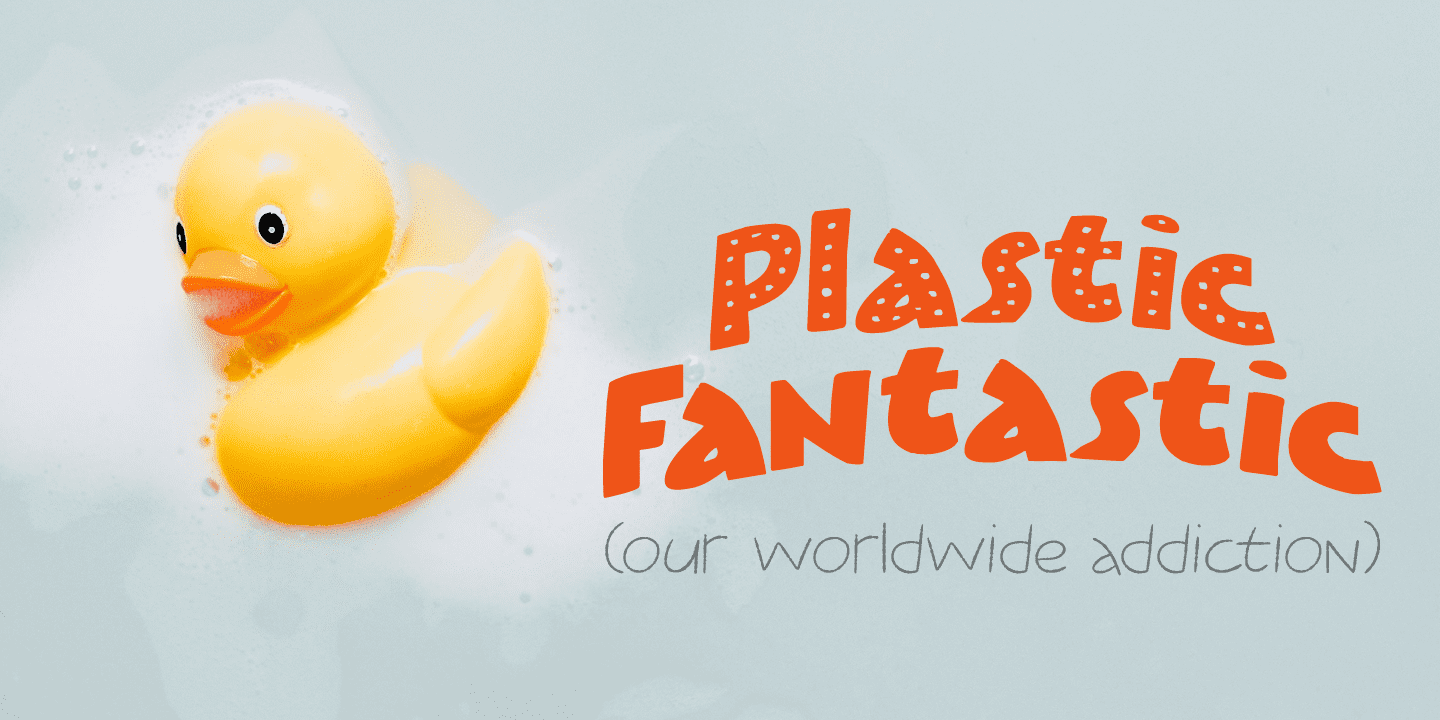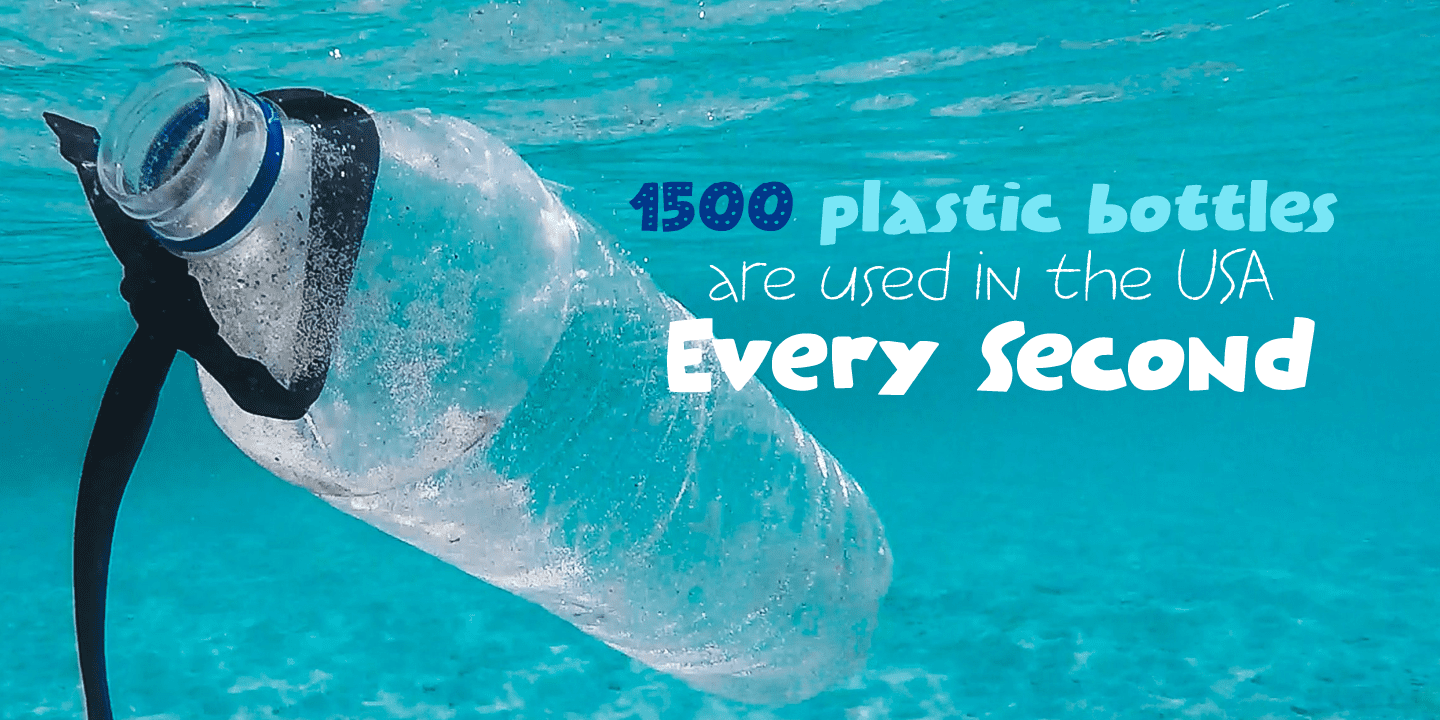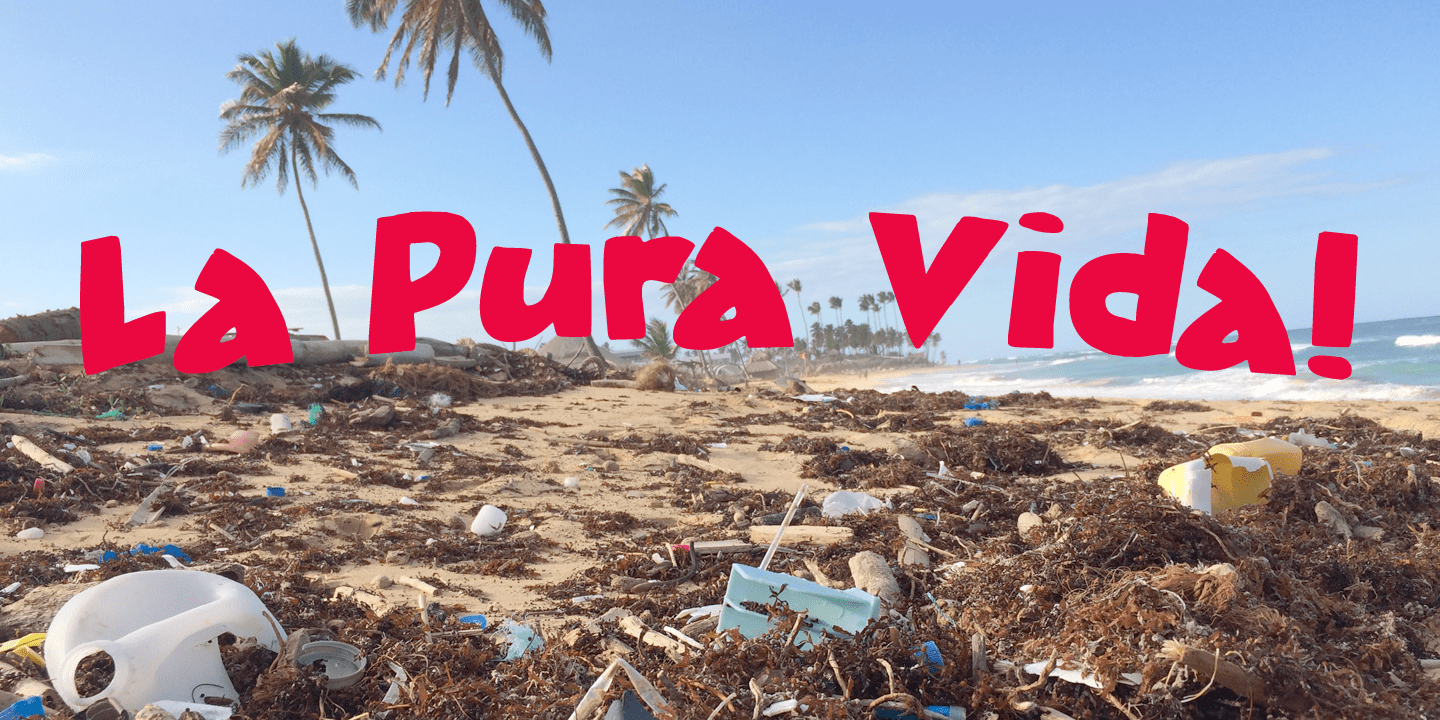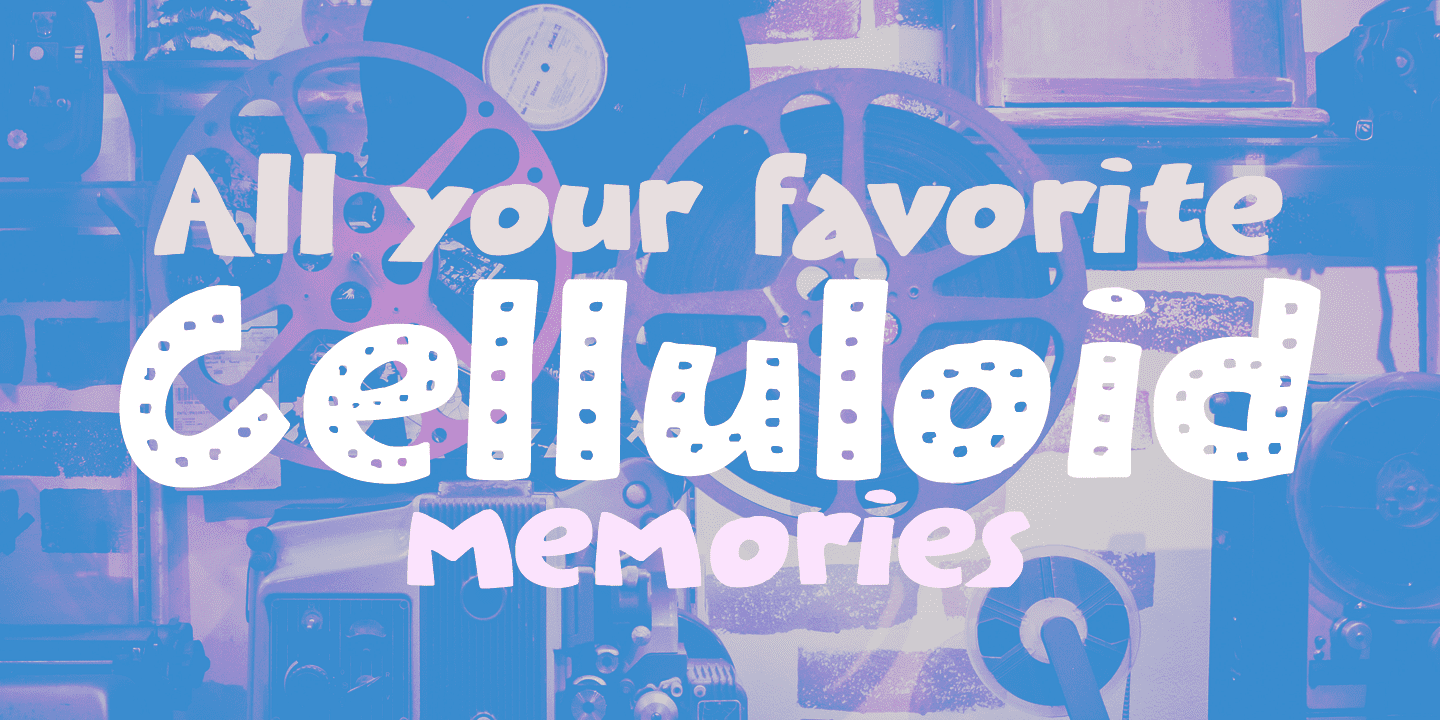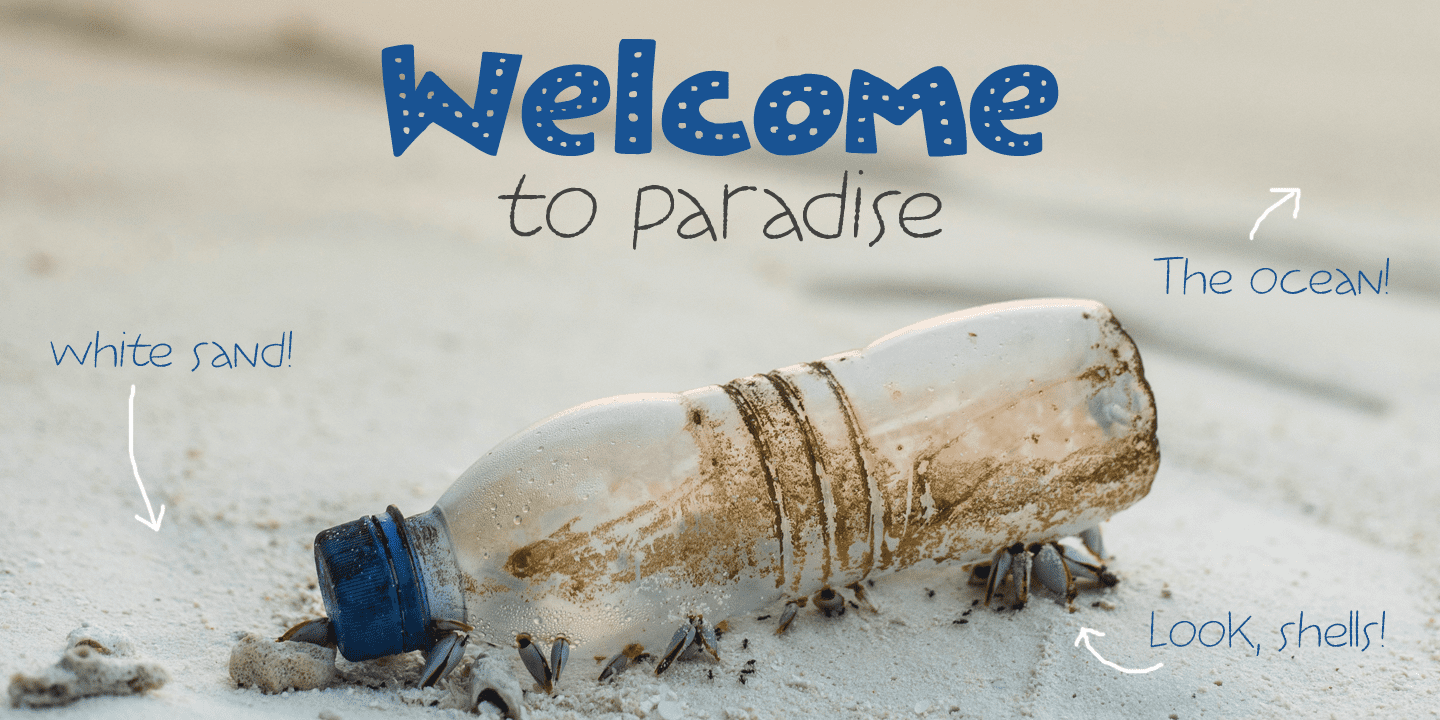
Plastic Fantastic is not an ode to the many uses of plastic. It is a wake up call: we really need to stop using disposable plastic!
You can start by implementing the Plastic Fantastic font family in your durable water bottle designs, the compostable bag holding your organic potato crisps or that big ole sign advertising your local food truck event. Or whatever it is you want to create. ;-)